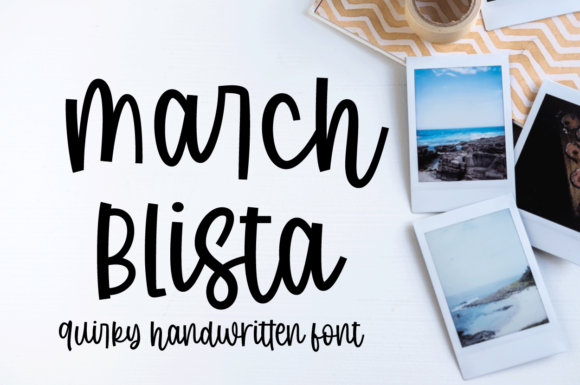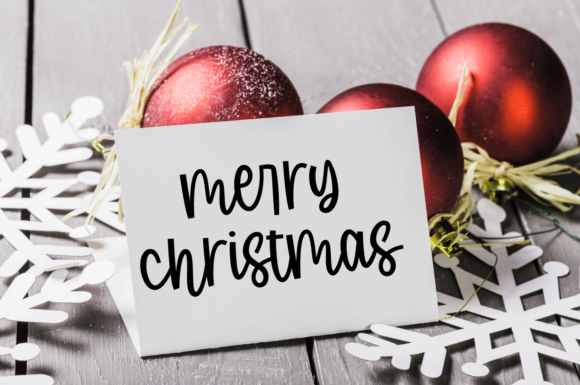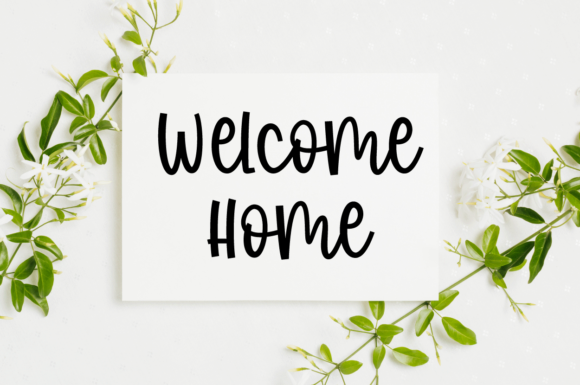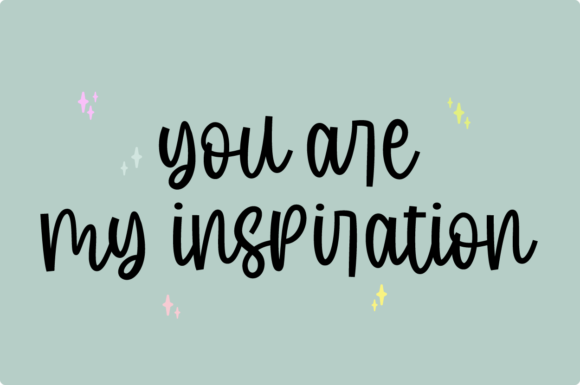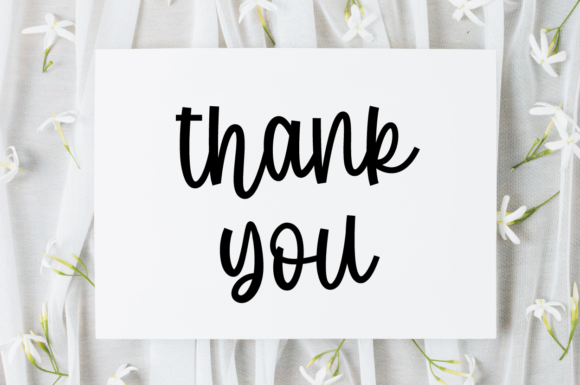
March Blista Font
About March Blista Font
March Blista is a charming and one-of-a-kind handwritten font that exudes a delightful and approachable vibe. Its playful and friendly nature gives it remarkable versatility, making it an ideal choice for a diverse array of design contexts. The font’s endearing appeal can be utilized to great effect in various applications, adding a touch of uniqueness and flair to your projects.
Imagine using March Blista on thank you cards. Its cute and whimsical appearance can instantly make recipients feel appreciated and cherished. Whether it’s a heartfelt note of gratitude or a personalized message, the font’s friendly feel can convey warmth and sincerity, leaving a lasting positive impression.
When applied to quotes and greeting cards, March Blista can infuse the text with a sense of lightheartedness and charm. The font’s distinctive style can transform ordinary quotes into eye-catching visual statements, capturing the essence of the words and resonating with the audience. Greeting cards adorned with March Blista can evoke smiles and create memorable connections.
For logos and business cards, March Blista’s unique handwritten look can set your brand apart from the rest. Its playful yet professional appearance can help create a visual identity that is both approachable and memorable. Whether it’s a creative start-up, a boutique shop, or a service-oriented business, the font can add a touch of artistic flair to your branding.
Incorporating March Blista into various designs, such as product packaging, social media graphics, and promotional materials, can also yield captivating results. Its cute and unique handwritten style can catch the eye and engage the viewer, making your content stand out in a crowded digital landscape.
March Blista’s versatility is its strength. Its ability to adapt to different design contexts, from business to personal projects, underscores its value as a creative tool. By integrating March Blista into your creative ideas, you can infuse them with a sense of playfulness, artistry, and uniqueness, making them truly stand out and leave a lasting impression on your audience.